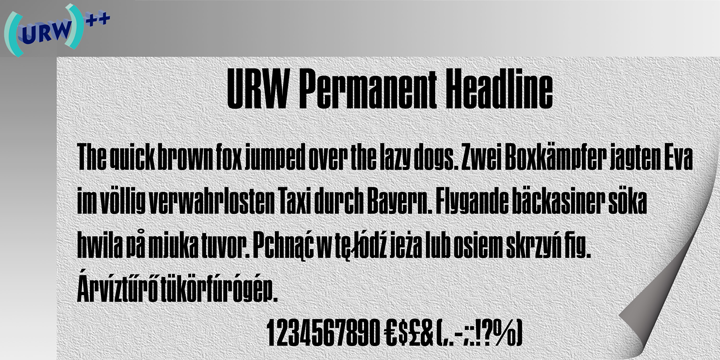
Permanent Headline Font is ideal for authoritative design projects including newspaper mastheads, news broadcasting graphics, editorial publications, magazine headers, press release materials, journalism schools, media company branding, and impactful communication campaigns. This commanding typeface works perfectly for news websites, television news channels, investigative reporting agencies, press organizations, and projects that demand immediate attention and credible news delivery.
What makes Permanent Headline Font exciting is its authoritative headline character that perfectly captures the essence of breaking news urgency and editorial excellence. The font features bold, distinctive letterforms with commanding presence that reflects the power and responsibility of news communication. Its professional design elements embody the spirit of journalistic integrity and media authority, making it perfect for projects that need to convey credibility, urgency, and connection to news traditions. The carefully crafted headline proportions ensure maximum impact while maintaining exceptional readability under deadline pressure.
Permanent Headline Font comes in multiple family variations including breaking, urgent, bold, and editorial styles. Each weight maintains the distinctive news character while offering different levels of headline intensity and media presence. The font family includes news alternates, editorial ligatures, and breaking variations that provide designers with comprehensive options for creating truly impactful and journalistically authentic typographic compositions that command immediate attention.
Whether you're designing news branding, creating media marketing materials, or developing editorial promotional graphics, Permanent Headline Font Free Download provides the perfect typographic foundation for projects that celebrate journalistic excellence and news authority. This exceptional typeface transforms ordinary text into compelling expressions of editorial power and news credibility. Download this authoritative font today and headline your design projects with the commanding presence and journalistic integrity that captures the essential spirit of news communication and editorial excellence.